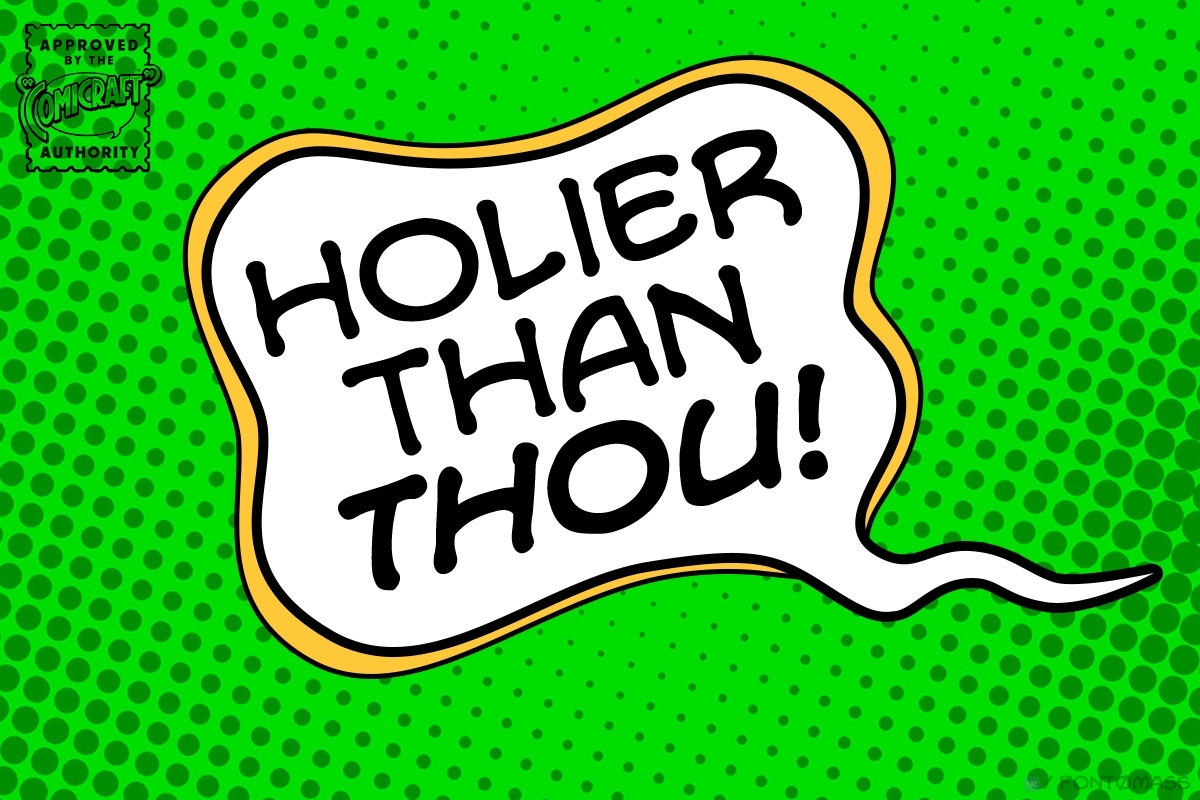
CC Holier Than Thou Font
CC Holier Than Thou Font is perfect for sacred institution branding, spiritual ceremony materials, religious education communications, ecclesiastical design projects, divine service promotions, contemplative retreat marketing, sanctuary signage, and reverent advertising campaigns. This sanctified typeface works magnificently in both digital applications and print media where spiritual authority and divine reverence are paramount design considerations.
What makes CC Holier Than Thou Font so exciting is its profound interpretation of sacred majesty and spiritual transcendence through elevated letterforms that seem inscribed with divine inspiration and celestial authority. The font features majestic characters with sacred proportions, heavenly curves, and blessed details that communicate spiritual superiority, divine grace, and the transcendent power of religious devotion. Its sanctified personality and ecclesiastical heritage make it ideal for religious organizations seeking to establish spiritual authority while appealing to devout audiences who value sacred tradition, divine worship, and the elevated experience of spiritual transcendence.
The CC Holier Than Thou Font family includes multiple weight variations with different sanctification levels, along with blessed alternates and divine ornamental elements. Each style maintains the typeface's sacred character while offering comprehensive character sets including holy numerals, ecclesiastical punctuation marks, and special symbols designed to enhance religious communications and spiritual branding efforts across various sacred contexts.
This remarkable typeface represents the perfect marriage of divine inspiration and contemporary typography for religious and spiritual industries. Whether you're developing church identities, creating religious ceremony materials, or designing spiritual retreat promotions, CC Holier Than Thou Font Free Download provides the sacred authority and versatility needed to inspire faithful congregations. The font's ecclesiastical appeal makes it particularly effective for religious institutions, spiritual organizations, contemplative retreats, and businesses serving communities seeking divine connection and spiritual elevation.
The meticulously crafted sacred details and optimized divine performance in CC Holier Than Thou Font ensure both spiritual authenticity and clear communication across all religious applications. Its sanctified presence makes it perfect for ecclesiastical branding, religious marketing materials, and sacred communications where its full holy character can create transcendent connections with audiences seeking spiritual guidance, divine inspiration, and the elevated experience of sacred worship.